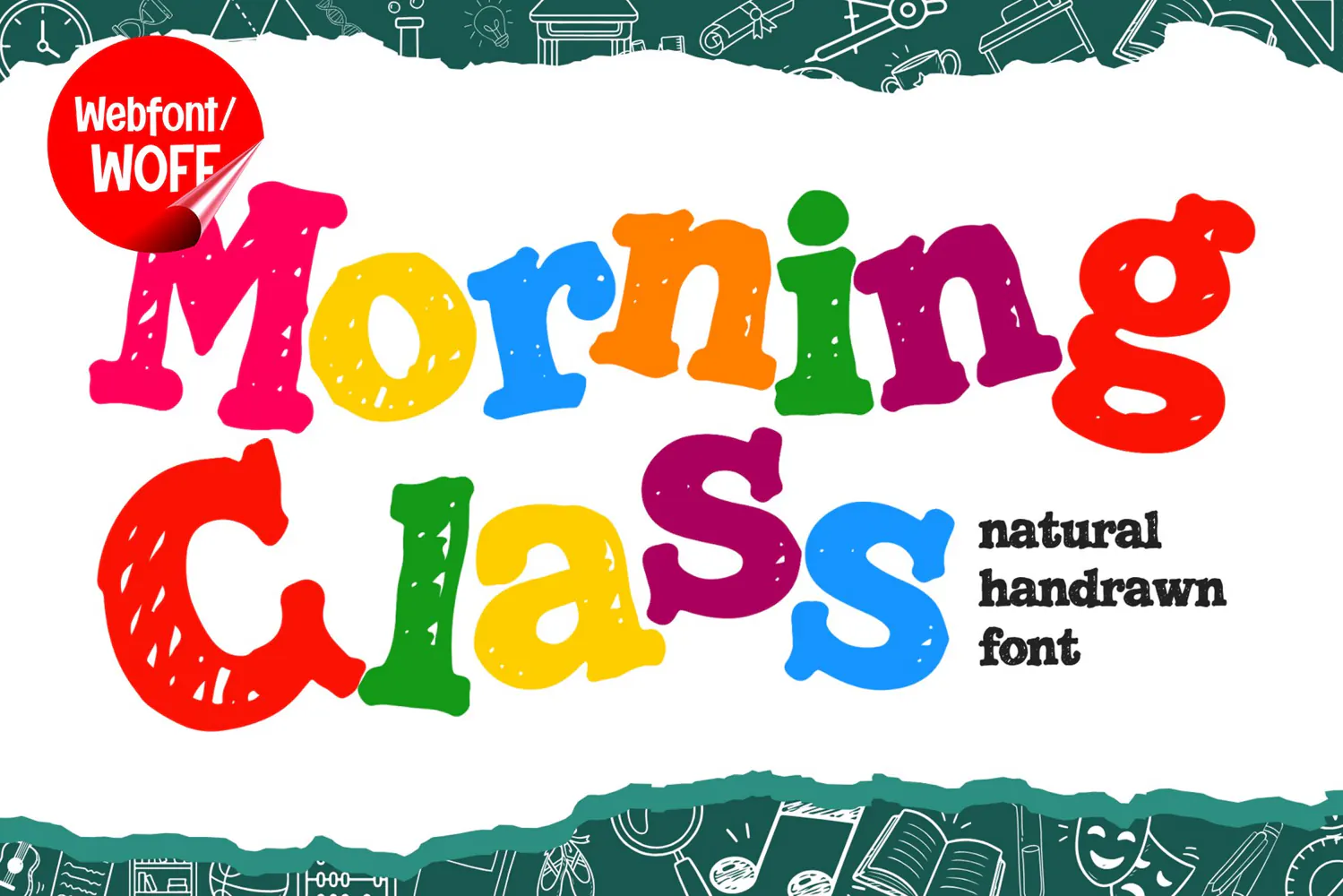
Bring a playful, cheerful, and natural handmade vibe directly to your digital platforms using Morning Class Webfont. This delightful children-themed display typeface is specifically crafted to give educational websites, kids' toy stores, learning blogs, and creative landing pages a fun, friendly, and engaging visual appeal.
Transform your website into a welcoming and joyful digital space with the charming style of Morning Class!
Morning Class Webfont